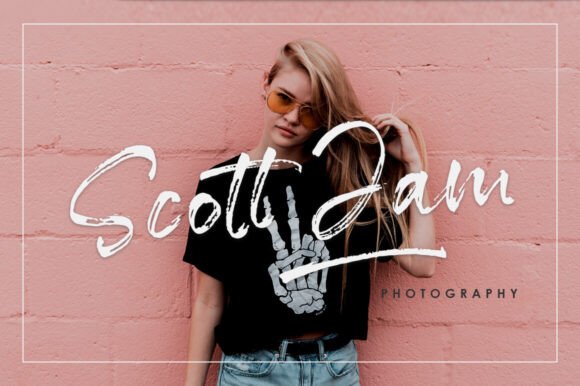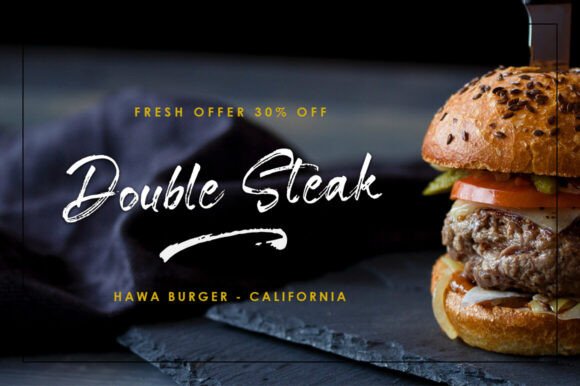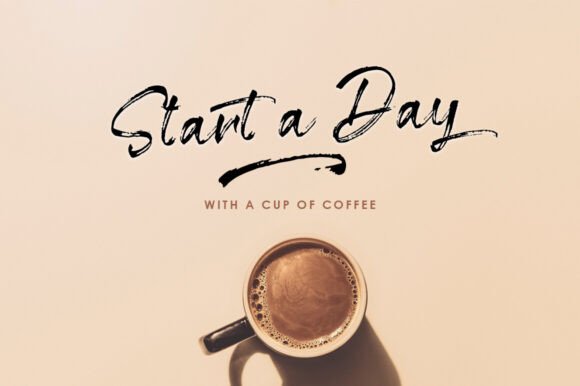
I still remember the frustration of working on a project, hours spent crafting the perfect design, only to realize that the font I chose just wasn’t cutting it. The client wanted something more elegant, more personal, and more unique. I scoured the internet for the perfect font, but nothing seemed to fit. That was until I stumbled upon the Anety Seytigah Font. ✨
Anety Seytigah Font: A Game-Changer for Designers
The Anety Seytigah Font is a modern brush font that brings a personal and elegant touch to any design. Its unique textured style and natural, handcrafted underlines make it perfect for a wide range of creative projects, from titles and branding to logos, invitations, t-shirts, packaging, posters, greeting cards, and more. 📝
What I Love About Anety Seytigah Font
- ✨ Unique Textured Style: The font’s textured style gives it a natural, handcrafted look that’s perfect for designs that need a personal touch.
- ✅ Alternates and Swash: The font comes with alternates and swash that add versatility and charm to your designs.
- 💫 Elegant and Sophisticated: The font’s elegant and sophisticated style makes it perfect for professional and artistic use.
While the Anety Seytigah Font is a fantastic font, there are a few small quirks to be aware of: 🤔
- ⚠️ Limited Use on Small Text: The font’s textured style can make it difficult to read in small text sizes.
- ⚠️ Requires OpenType Features: The font’s alternates and swash require OpenType features to work properly.
The Story Behind Anety Seytigah Font
The Anety Seytigah Font was designed by a young and talented font designer who wanted to create a font that would bring a personal and elegant touch to any design. Inspired by the beauty of handwritten scripts, the designer spent countless hours perfecting the font’s unique textured style and natural, handcrafted underlines.
| Font Name | Anety Seytigah Font |
| Author | SiwoxS |
Q: What is the Anety Seytigah Font?
A: The Anety Seytigah Font is a modern brush font with a unique textured style and natural, handcrafted underlines.
Q: What can I use the Anety Seytigah Font for?
A: The Anety Seytigah Font is perfect for a wide range of creative projects, from titles and branding to logos, invitations, t-shirts, packaging, posters, greeting cards, and more.
Q: Does the Anety Seytigah Font come with alternates and swash?
A: Yes, the Anety Seytigah Font comes with alternates and swash that add versatility and charm to your designs.